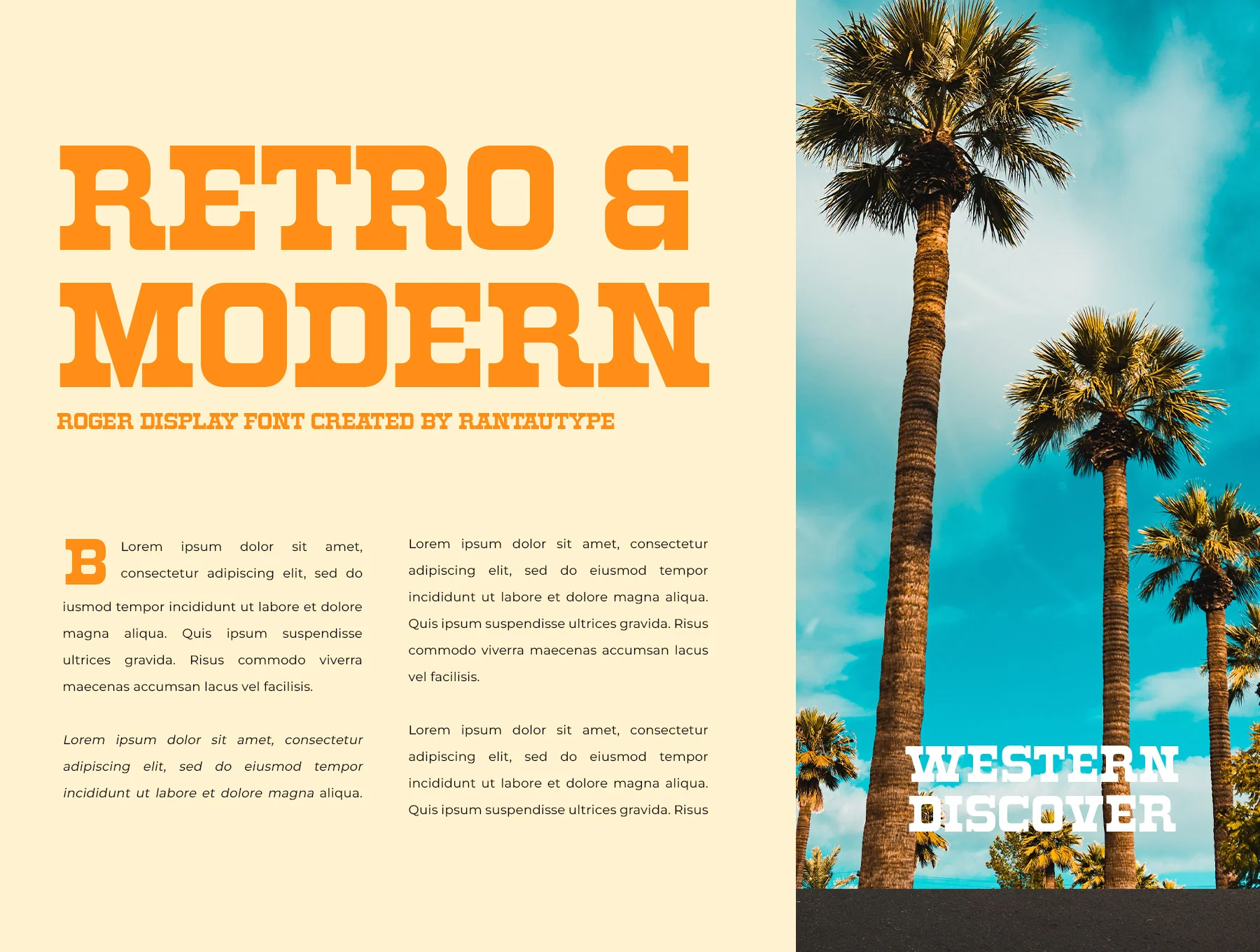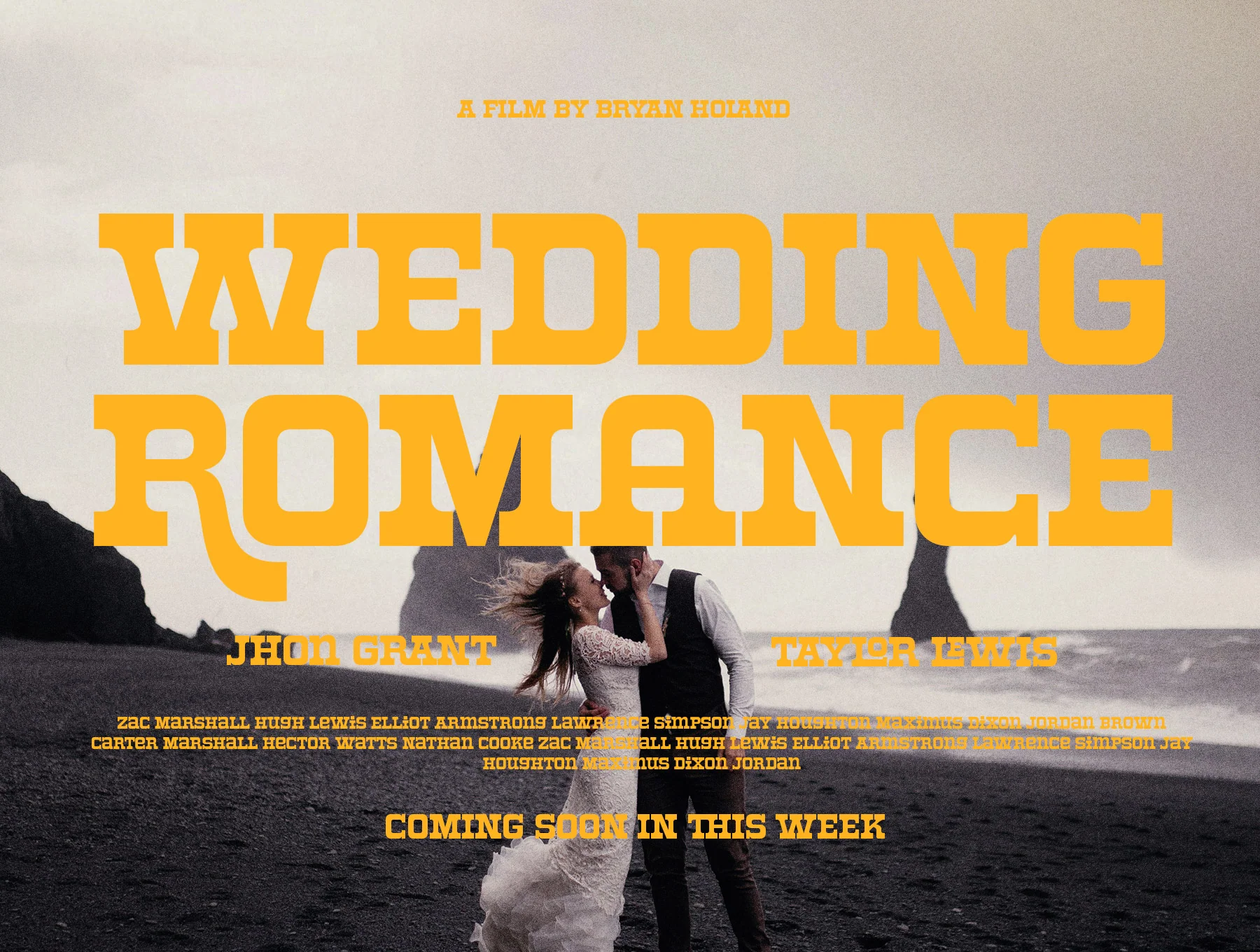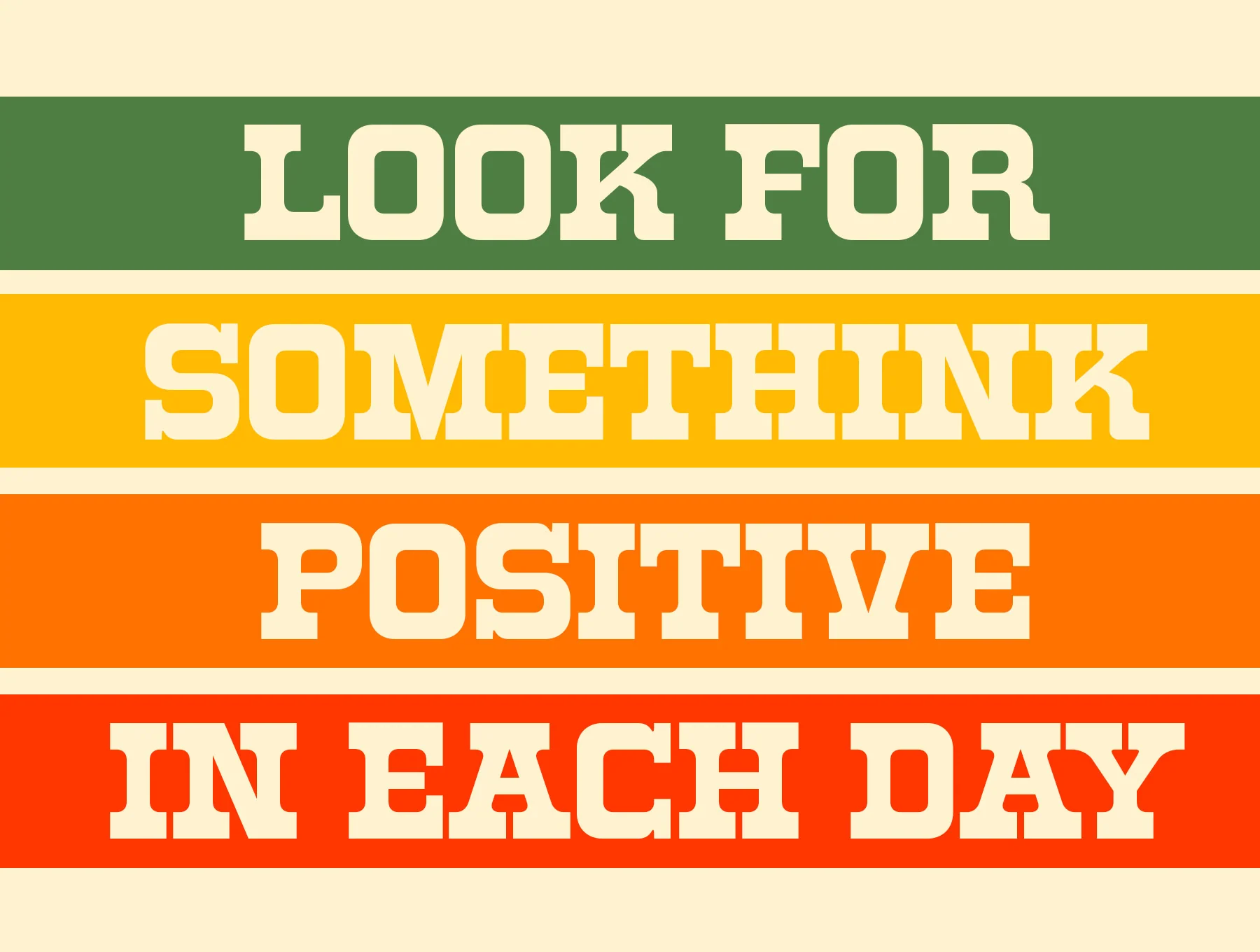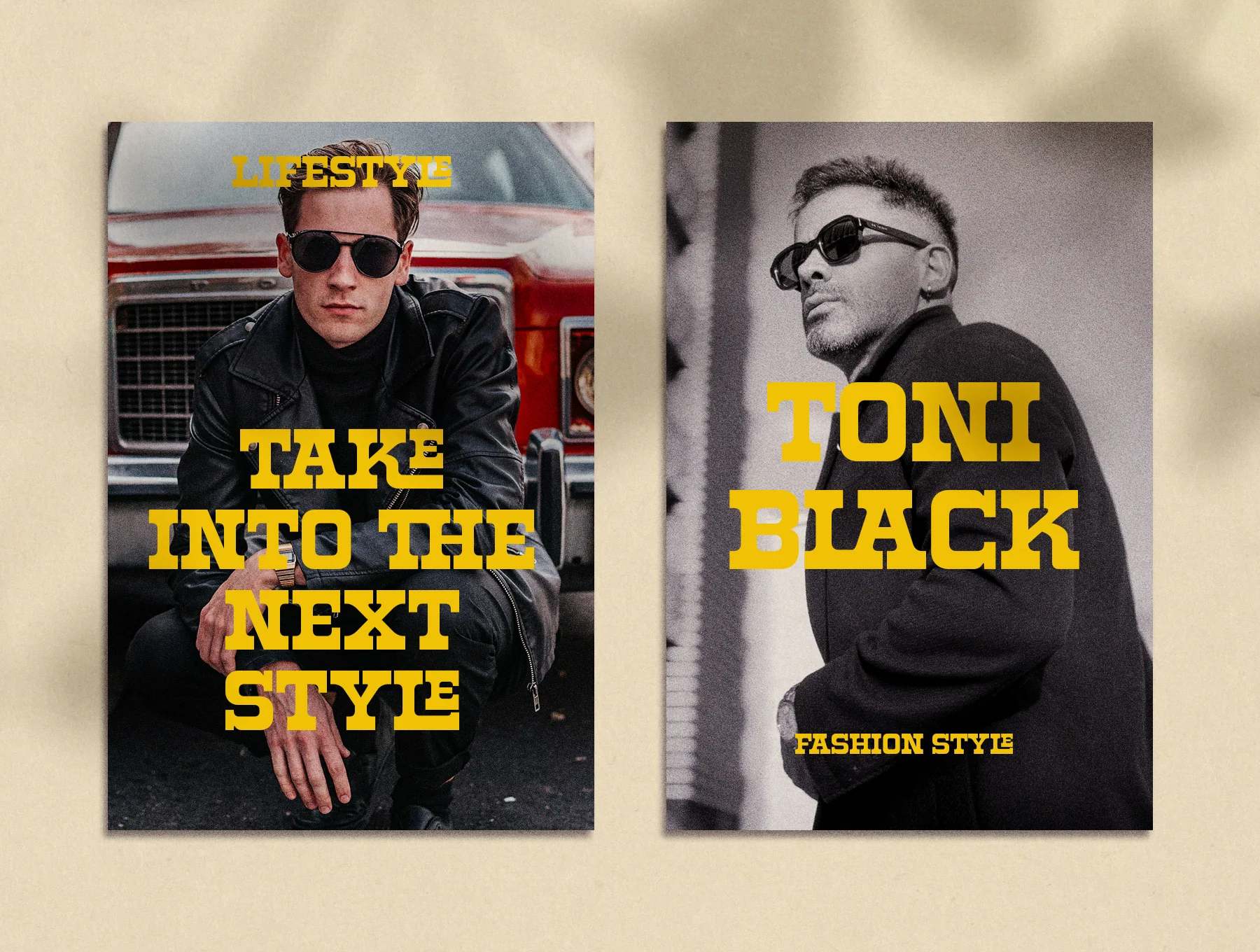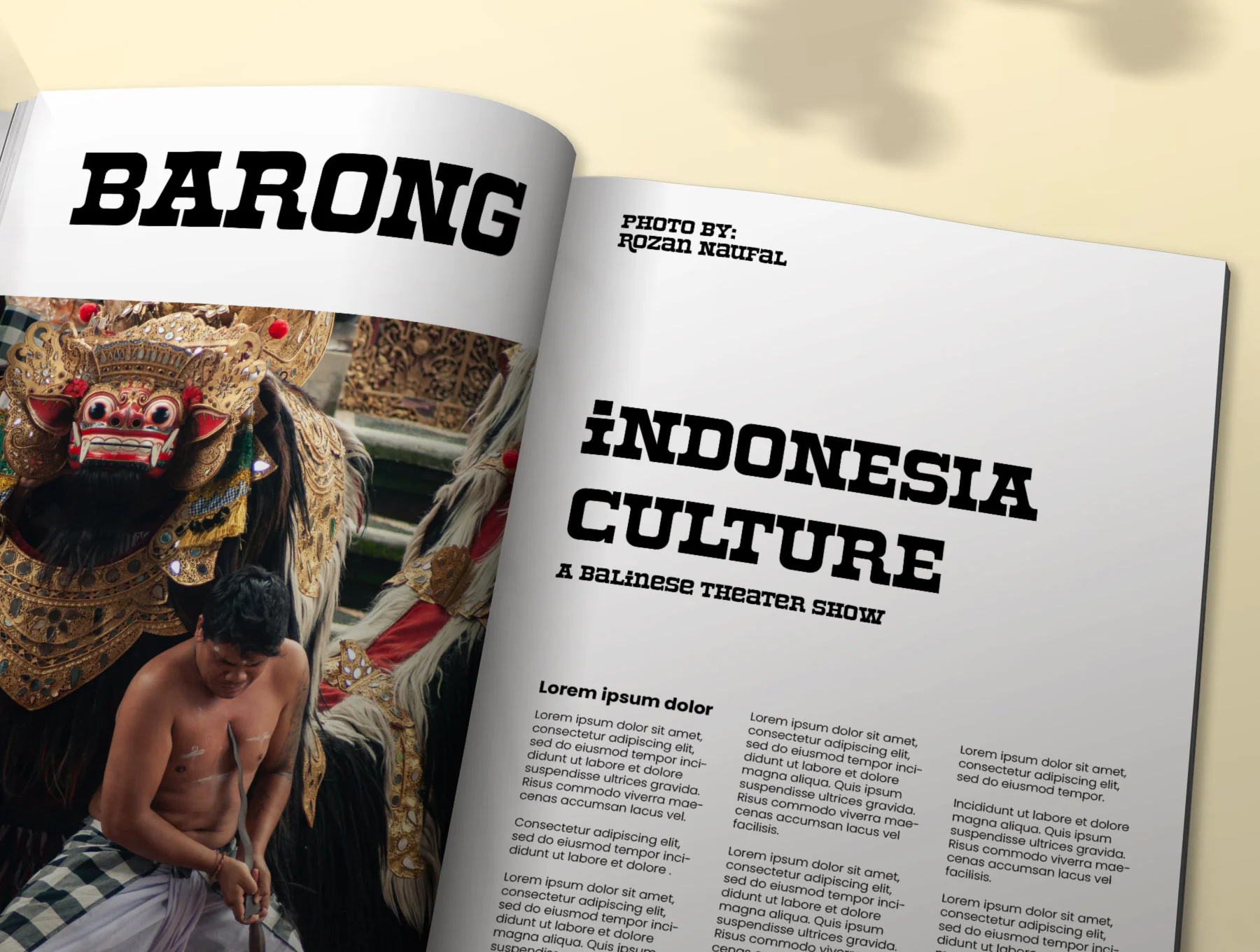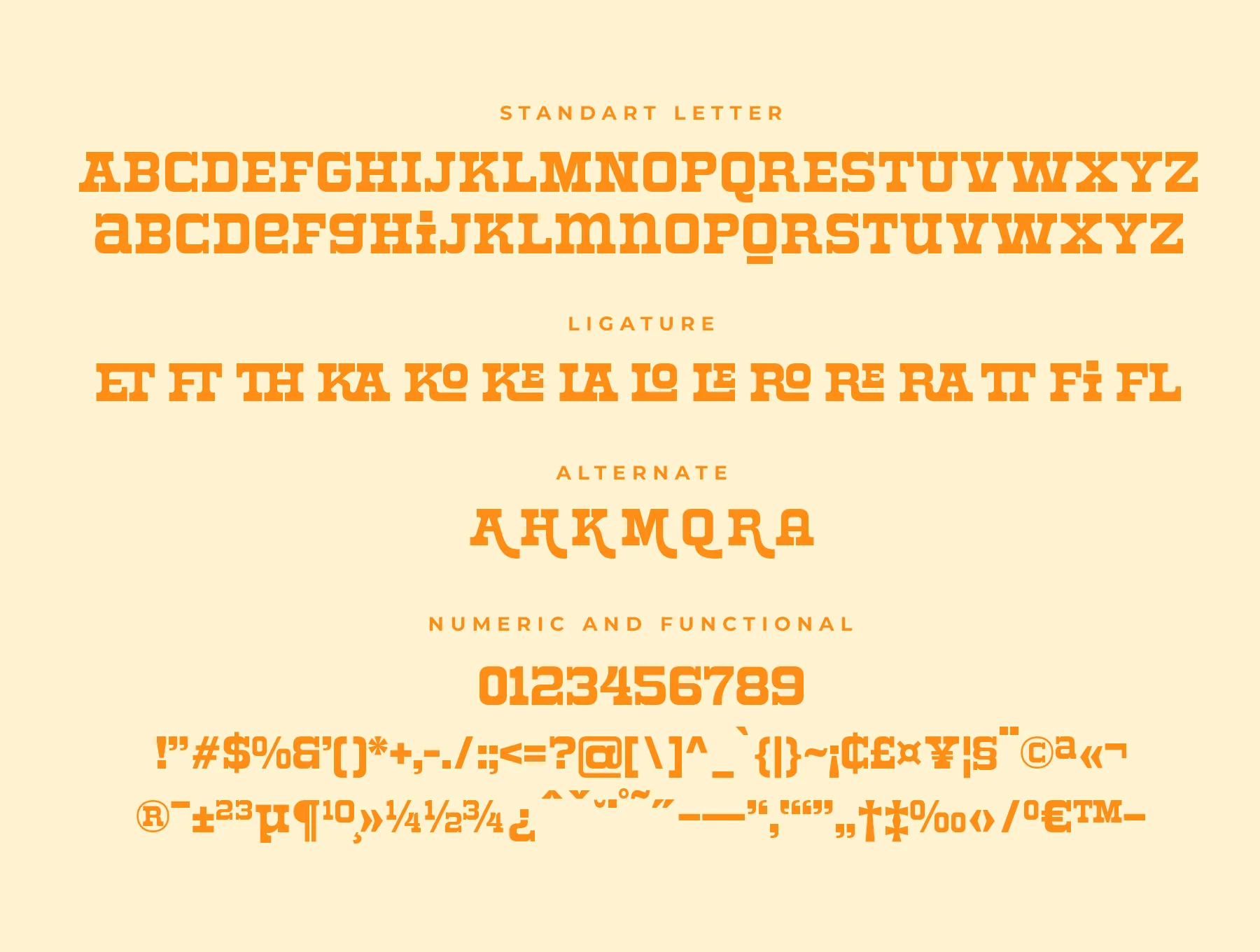
Roger Display Western Font
Western-style Roger display typeface
Standard character glyph set
Numerals plus functional symbols
Ligatures with alternate characters
Roger Display is a retro-modern display font influenced by midcentury Southwestern lettering. Includes Regular and Italic in OTF, TTF, and WOFF, with standard glyphs, numerals, alternates, and ligatures. Works on Mac/PC and in Adobe apps plus Word. Supports many Latin and Greek-based languages. Contact: rantautype@gmail.com